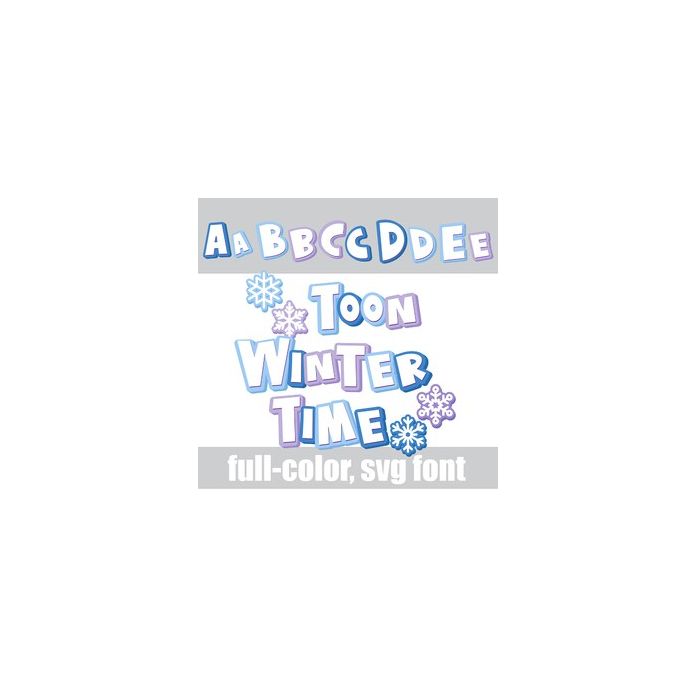
This full-color font features toon-like lettering with a heavy 3d shadow. You can access snowflakes by typing the greater than and less than glyphs. There is an alt case w/ additional colors you can access through your system or Silhouette's glyph map.